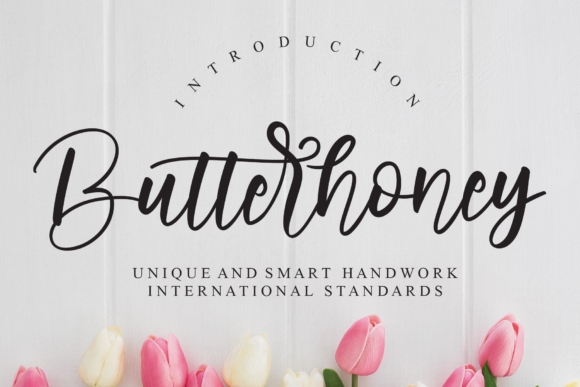
Unleash the enchanting beauty of Butterhoney Font, a captivating handwritten font designed to add an exquisite touch to your creative projects.
Butterhoney Font is the perfect choice for adding a personal touch to your designs. With its graceful curves and playful style, this font evokes a sense of warmth and uniqueness that will make your designs stand out from the crowd.
Whether you're a graphic designer, a crafter, or simply someone who loves to add a creative flair to their projects, Butterhoney Font is the perfect choice for you. This font is incredibly easy to use and can be incorporated seamlessly into your existing designs.
With its charming and versatile style, Butterhoney Font is perfect for:
* Creating stunning logos and branding materials
* Adding a personal touch to your social media posts
* Designing unique invitations, cards, and other paper goods
* Creating eye-catching marketing materials
* Personalizing your digital projects
* Crafting beautiful scrapbook pages and photo albums